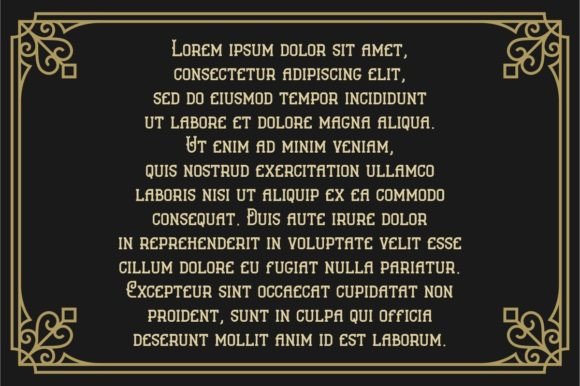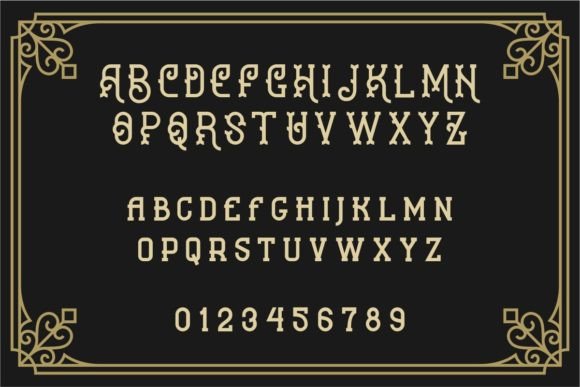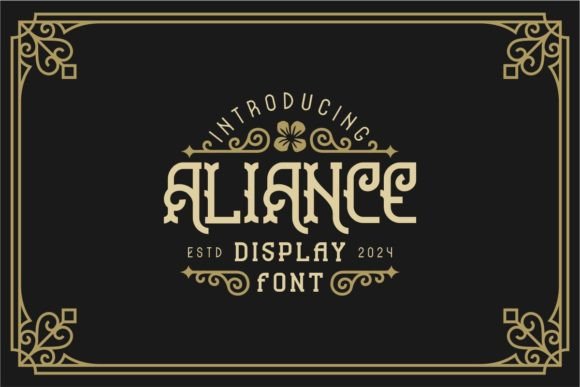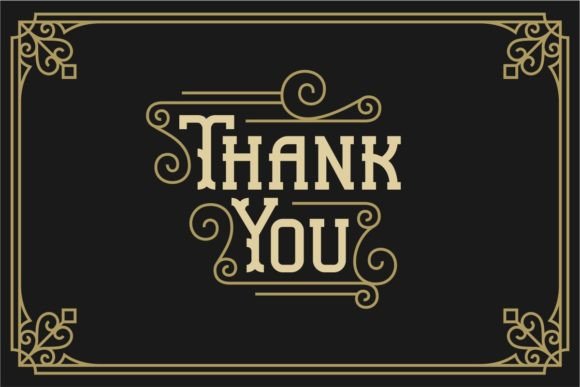
Aliance Font: Vintage Display Font for Elegant Logo Design & Typography
About the Aliance Font
Discover the charm of Aliance Font. This font is a perfect blend of modern aesthetics and classic appeal. Introducing “Aliance,” a vintage font that echoes the charm of Victorian typography. With its intricate details and timeless appeal, Aliance adds a touch of nostalgia to your designs. Perfect for projects requiring a vintage aesthetic, this font transports your text to the elegance of the Victorian era. Whether used for invitations, labels, or any creative endeavor, Aliance effortlessly infuses a sense of classic sophistication into your typography. Embrace the past with this beautifully crafted vintage font.